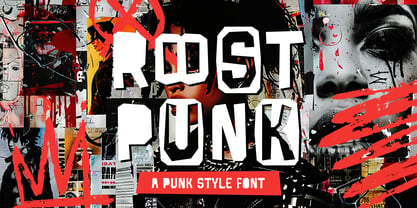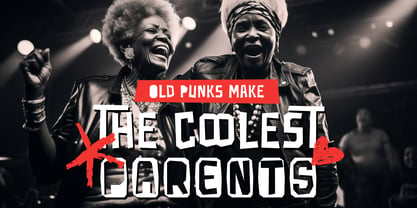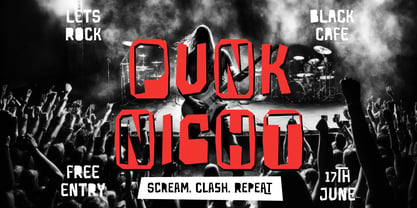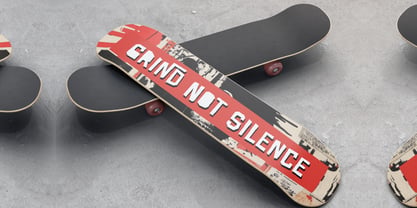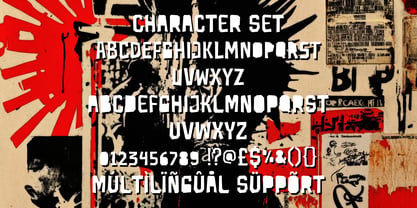
Roost Punk
by Shanaf
The Roost Punk Font Family was designed by Yesie Erma Yunita and published by Shanaf. Roost Punk contains 1 styles.
Roost Punk is an expressive, rebellious display font that boldly channels the raw energy of punk rock and urban street culture. With its edgy, sharp, and rugged letterforms, each character looks intentionally distorted, reflecting the dynamic, rebellious spirit characteristic of punk aesthetics. Its unique blend of irregular cuts, angular edges, and imperfect strokes perfectly encapsulates the essence of the urban street vibe, offering a visual expression that is strikingly loud and unapologetically bold.
Ideal for projects aiming to break boundaries, Roost Punk thrives in creative contexts such as music posters, rock concert flyers, skateboard graphics, and rebellious brand identities. Its powerful layout effortlessly captures attention, making it the ultimate choice for logos, streetwear branding, editorial headlines, album covers, and film titles. This urban-inspired typeface empowers designers to deliver bold statements with impactful style, clearly communicating authenticity, attitude, and individuality. Roost Punk is not merely a font; it’s a definitive statement of rebellion, artfully bringing punk's bold, disruptive energy to any design.